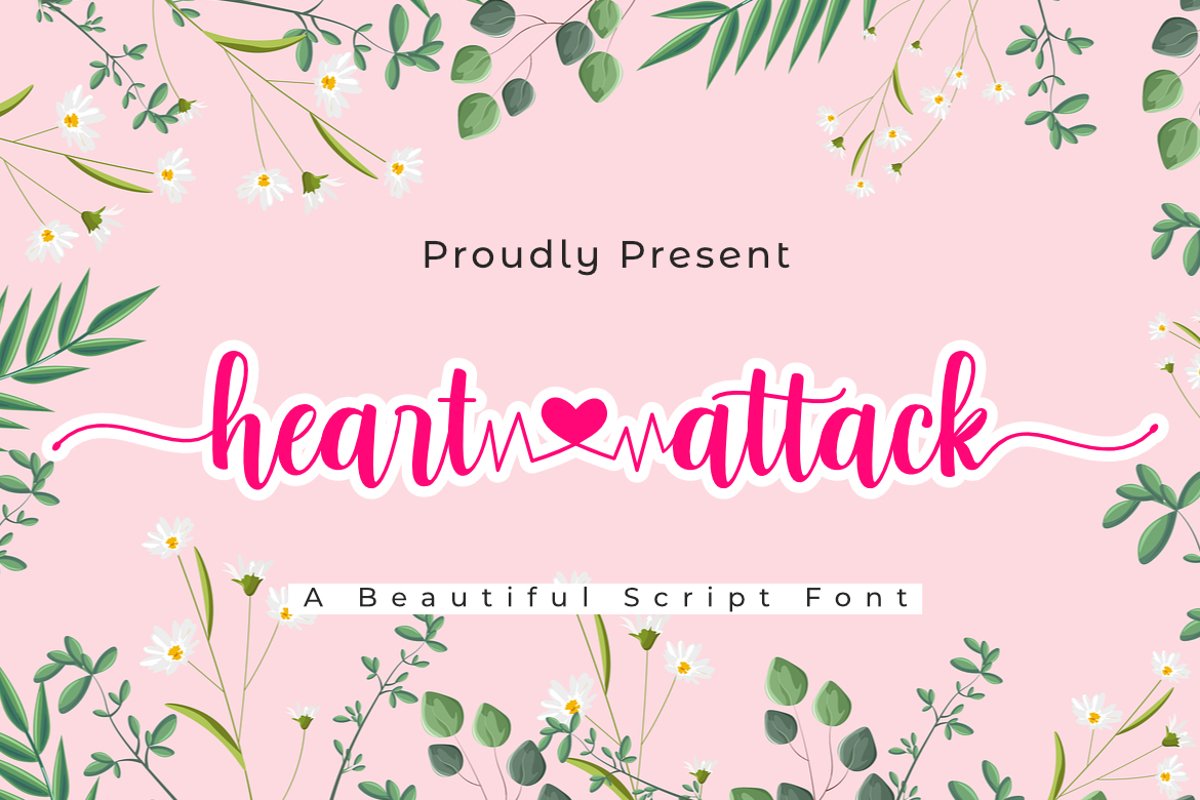
Heart Attack | A Lovely Script Fpnt
Heart Attack
Heart Attack feels equally charming and elegant. It looks stunning on wedding invitations, thank you cards, quotes, greeting cards, logos, business cards and every other design which needs a handwritten touch.
This font is PUA encoded which means you can access all of the glyphs and swashes with ease! It features a varying baseline, smooth lines, gorgeous glyphs and stunning alternates.